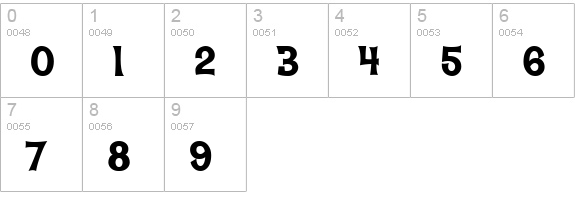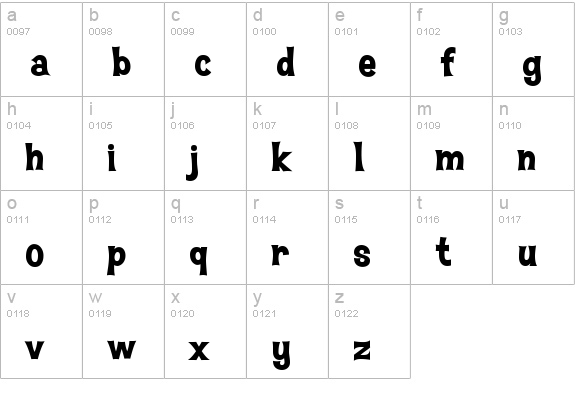
Hawaiian Aloha BTN XBd Font Details
Hawaiian Aloha BTN XBd is a beautiful and unique font that encapsulates the essence of the Hawaiian islands. With its bold and vibrant design, this font is perfect for capturing the spirit of Aloha in your projects. This font features an exquisite blend of tropical elements and modern typography. The letterforms are intricately crafted, showcasing the rich cultural heritage of Hawaii. Each character exudes a sense of warmth and hospitality, inviting the viewer to indulge in the laid-back island lifestyle. Hawaiian Aloha BTN XBd is not only visually stunning but also highly versatile. It can be used for a wide range of applications, from branding and logo design to advertising materials and social media graphics. Its bold weight ensures that your message will stand out and make a lasting impression. What makes this font even more appealing is that it is freely available to download at FontsMarket.com. Yes, you heard it right - you can get this incredible font absolutely free! FontsMarket.com is a trusted source for high-quality fonts, and they have made it incredibly easy for you to access Hawaiian Aloha BTN XBd and many other stunning fonts. So why wait? Unleash the tropical vibes and infuse your designs with the spirit of Aloha with Hawaiian Aloha BTN XBd. Download it now for free at FontsMarket.com and let your creativity soar!